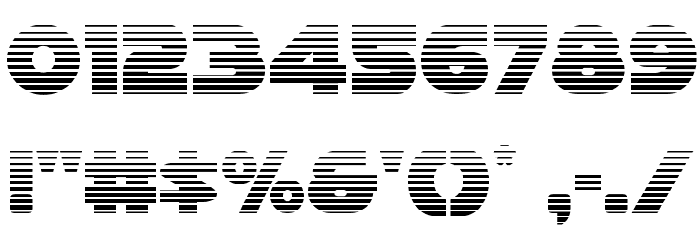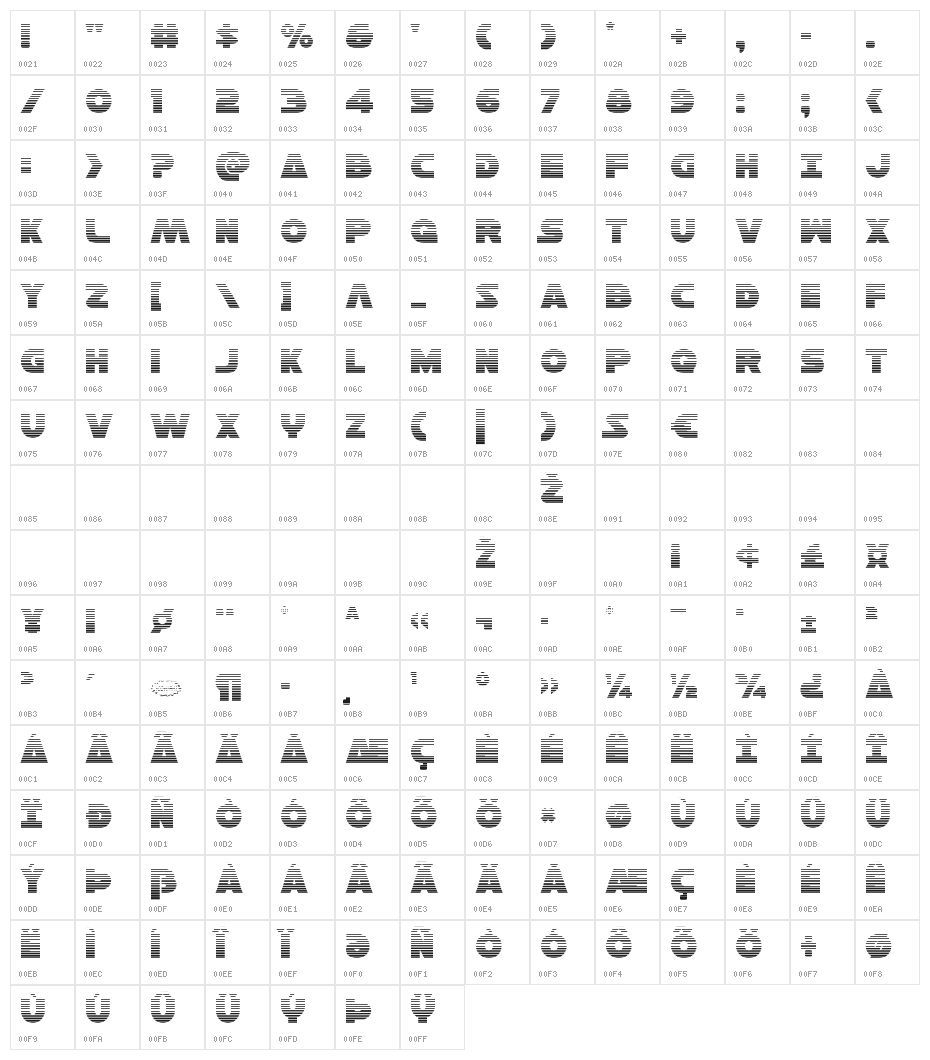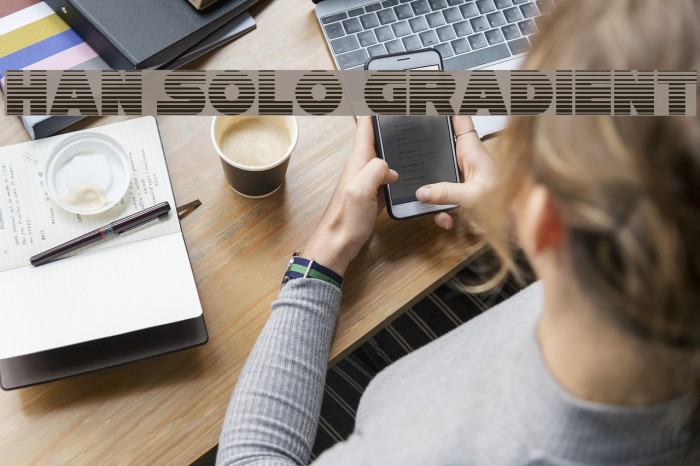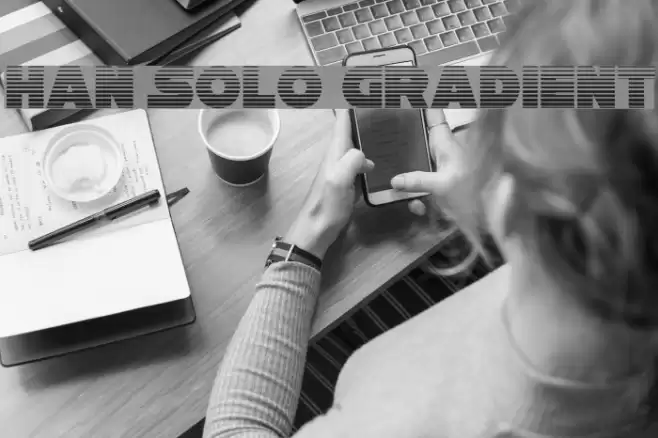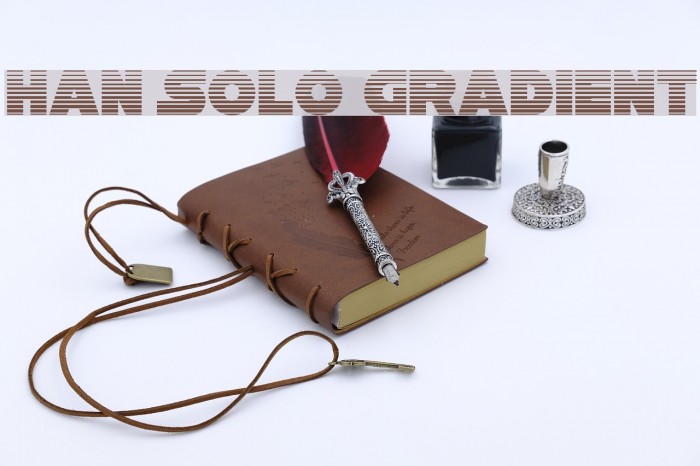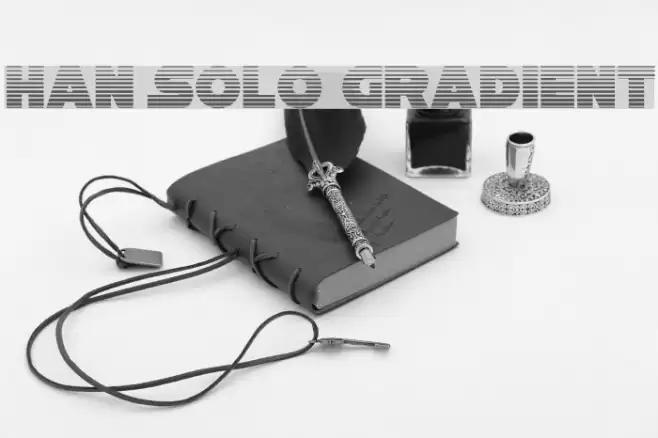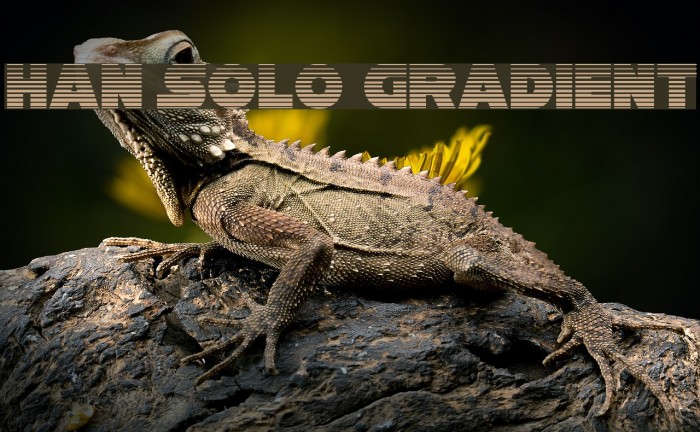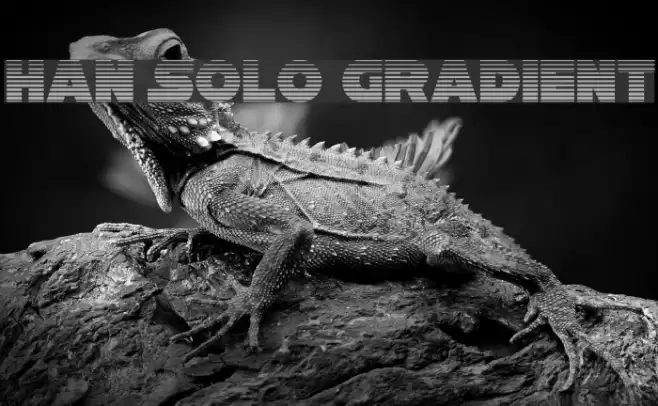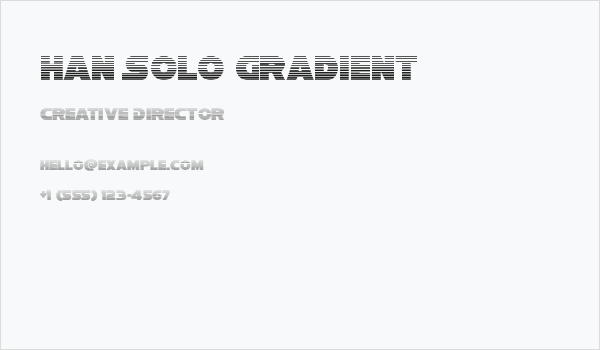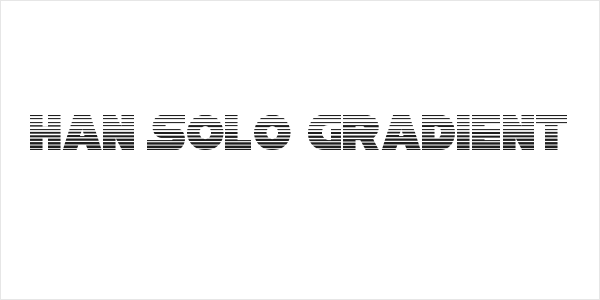
Han Solo Gradient Font
Han Solo Gradient Description
This font features a unique, futuristic design characterized by horizontal lines cutting through each character, creating a gradient-like effect. The bold, geometric shapes of the letters give it a strong, impactful presence. The uppercase and lowercase letters maintain a consistent style, with the horizontal lines adding a sense of movement and dynamism. The numerals and special characters are designed with the same distinctive pattern, ensuring uniformity across all elements. This font's modern and innovative appearance makes it ideal for projects that require a bold, eye-catching typeface.
| Overall Style | Futuristic, Modern |
| Proposed Projects | Ideal for sci-fi themed designs, movie posters, video game titles, and branding that requires a modern, edgy look. |